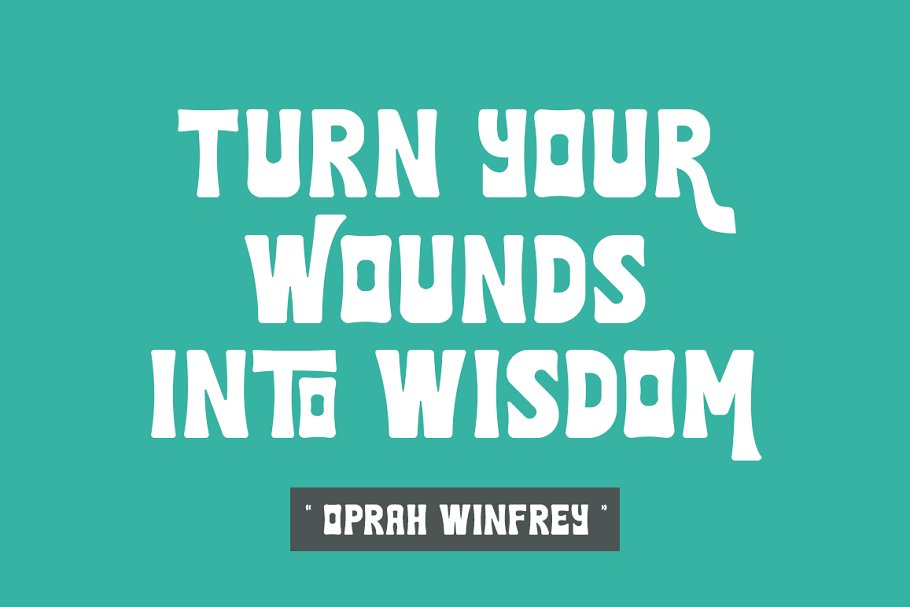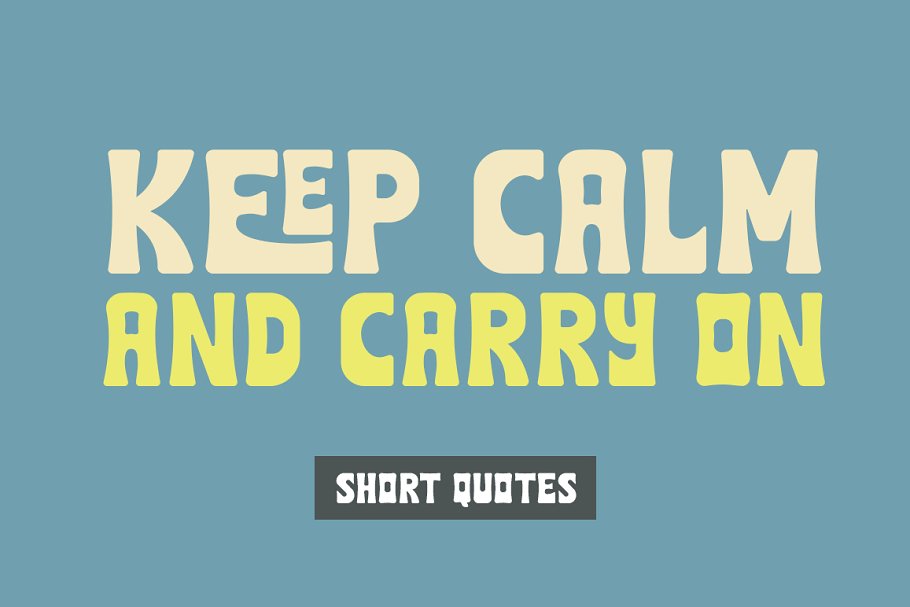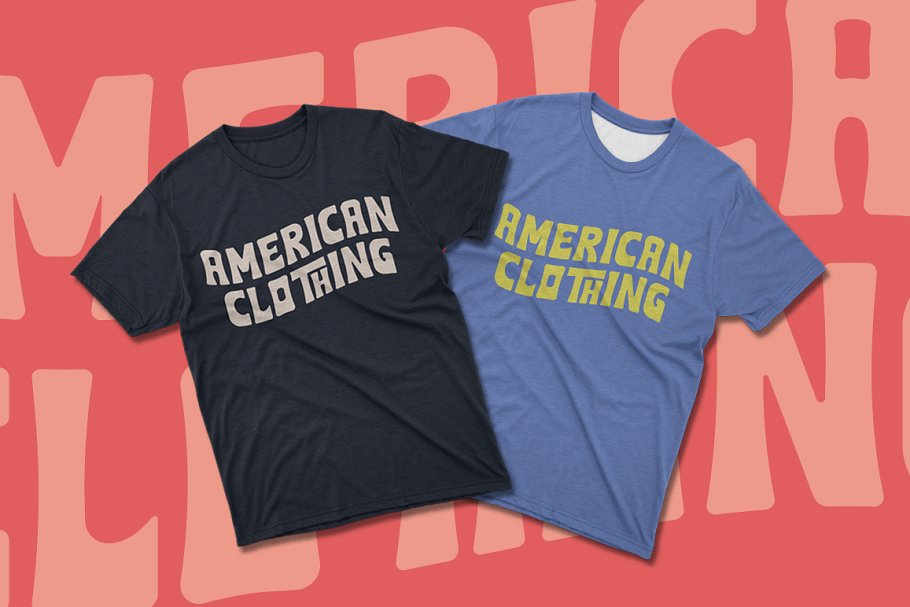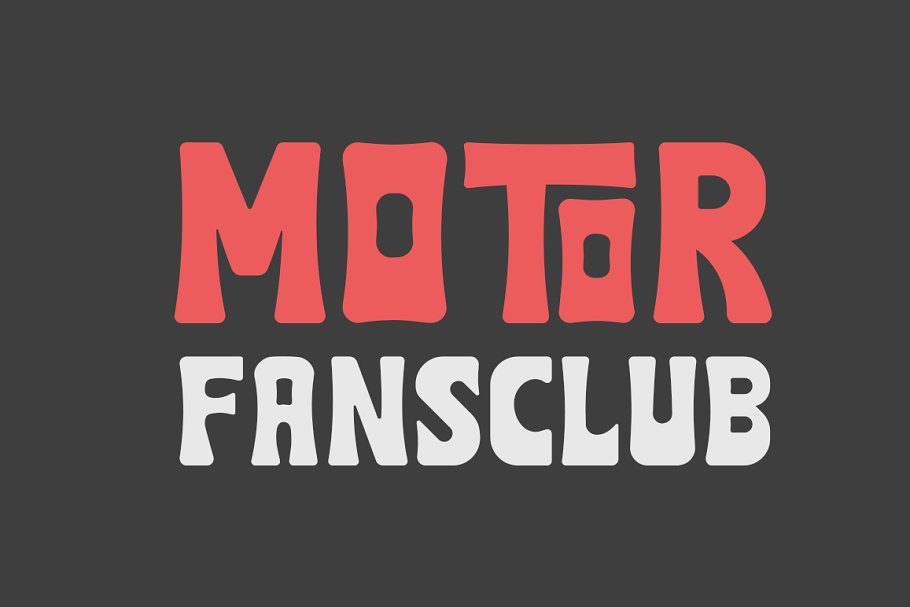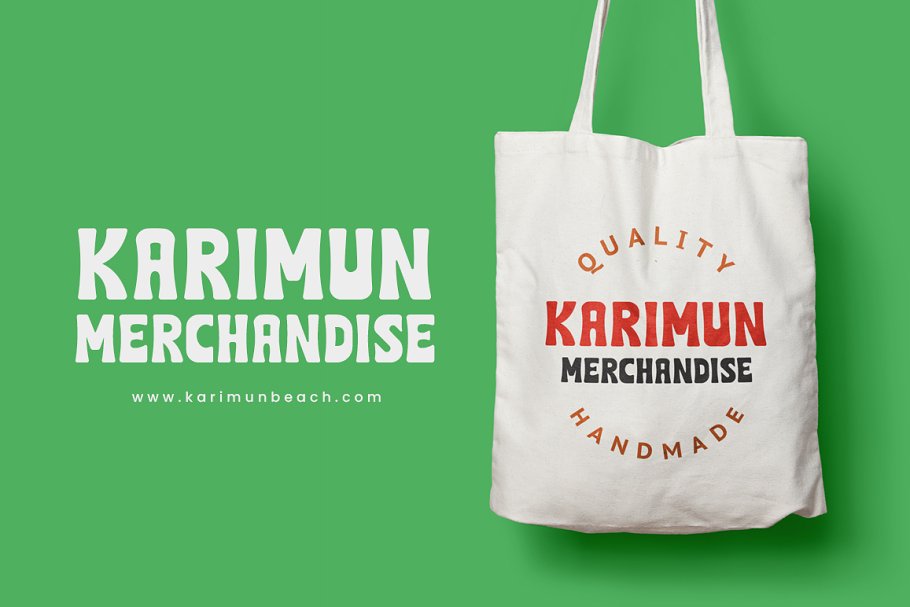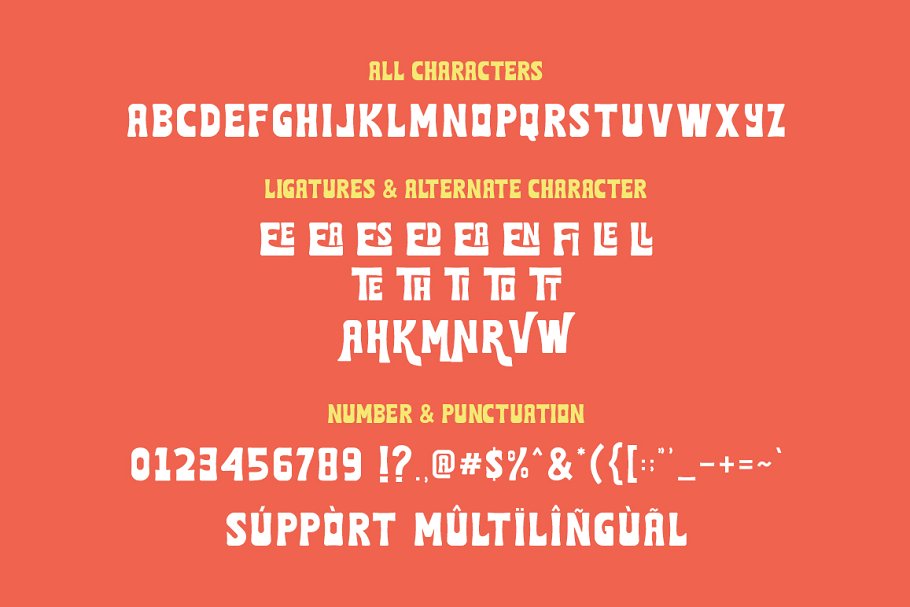
About the ROMAN VIBES RETRO DISPLAY Font
Roman Vibes is a vintage and fun font. This typeface has can be used for retro theme or modern looks. Very suitable for branding, quotes, logotype, headline, tittle, and the other various formal forms such as invitations, emblems, logos, magazines, books, packaging, clothing, t-shirt, and labels.
- Stylistic Alternates & Ligature
- Number & Punctuation
- Support Multilingual Languange